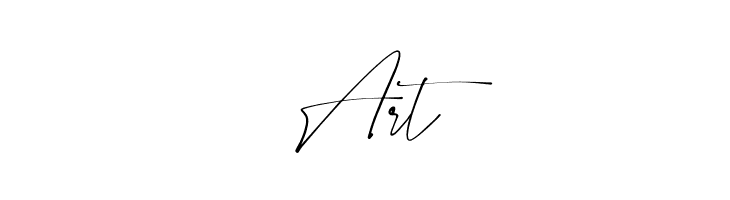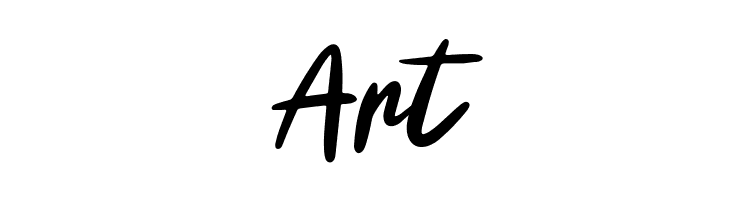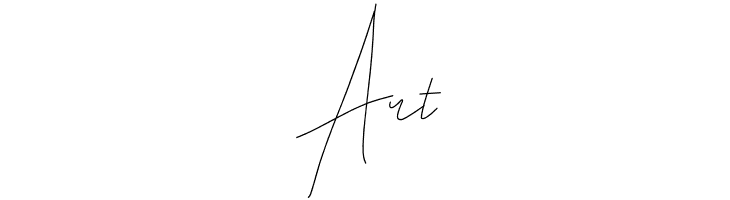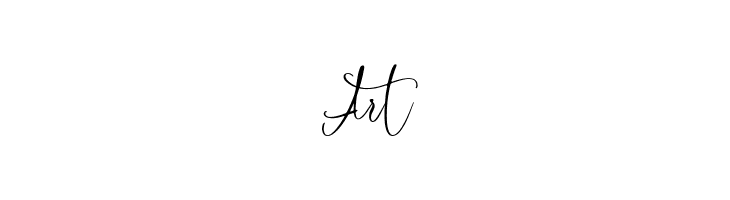
A graceful script font with fluid, connected strokes and a natural handwriting style.
An elegant, flowing script font with a natural handwriting style.
A bold, lively script font with fluid, natural handwriting style.
An elegant, flowing script font with a natural handwriting style.
A flowing, cursive script font with elegant, elongated letters and a natural handwriting style.
A lively, cursive font with a playful and artistic handwriting style.
A cursive script font with elegant, flowing characters and a natural handwriting style.
An elegant, flowing script font with a natural handwriting style.